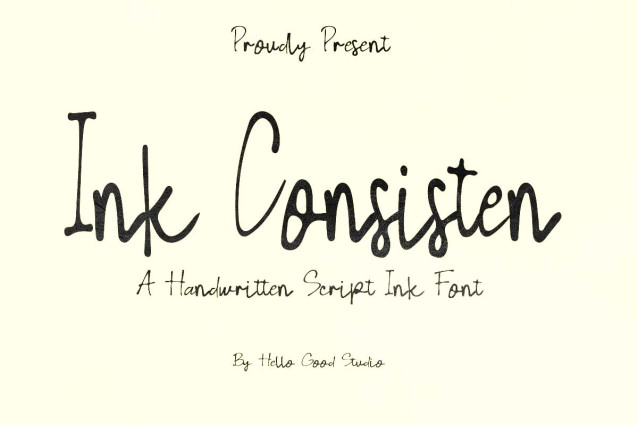
Ink Consisten Font
Ink Consisten Font is a simple and friendly handwritten font. Its natural and unique style makes it incredibly fitting to a large pool of designs. The only limit is your imagination!